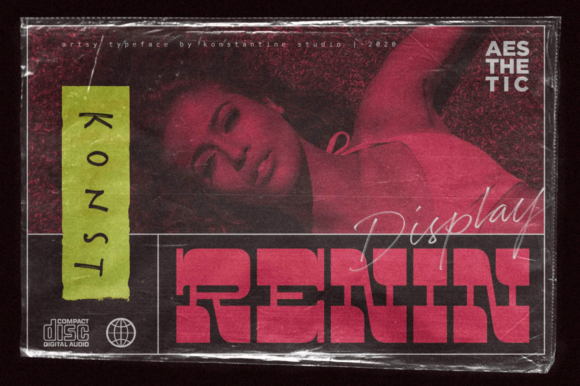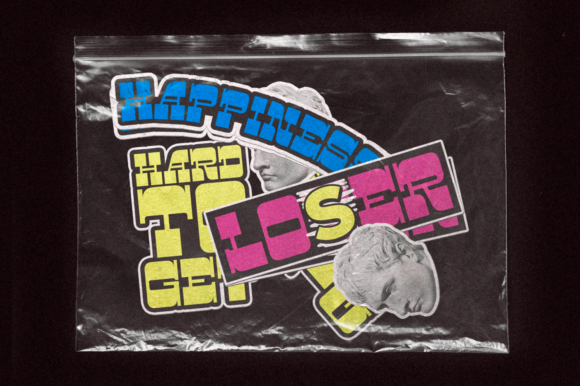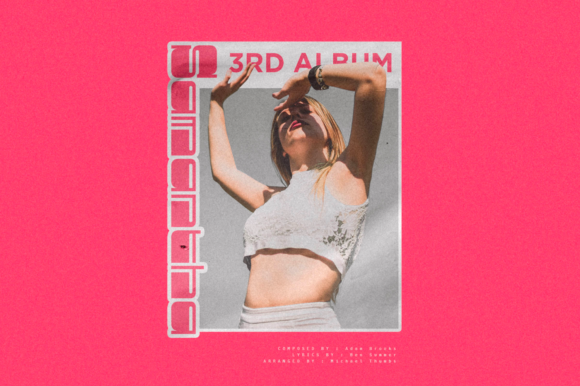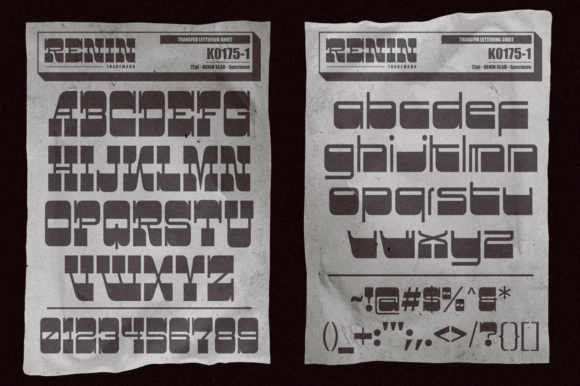
Renin Font: Bold Retro Display Font for Eye-Catching Logo Design
About the Renin Font
Experience the unique personality of Renin Font, a font designed for impact. Renin is a bold, vintage styled and western looking slab serif font. Add it to labels, branding, ads or pretty much anything that requires a retro touch.
Renin’s bold, slab-serif forms excel in headlines, short text blocks for posters and branding materials, and even packaging where a strong vintage aesthetic is desired. Its retro feel works particularly well for projects evoking Americana, western themes, or a nostalgic feel. However, avoid using Renin for body text or lengthy paragraphs; its weight and strong character make it unsuitable for extended reading.
Pairing Renin effectively requires considering its assertive personality. A clean sans-serif like Montserrat or a slightly more geometric sans-serif such as Futura would provide a modern counterpoint, balancing its vintage style. For a warmer feel, a script font with a touch of vintage charm, but less weight than Renin itself, could work well.
The overall personality of Renin is confident and assertive, yet approachable due to its vintage style. It’s ideal for brands conveying heritage, craftsmanship, or a rebellious spirit with a touch of nostalgia.